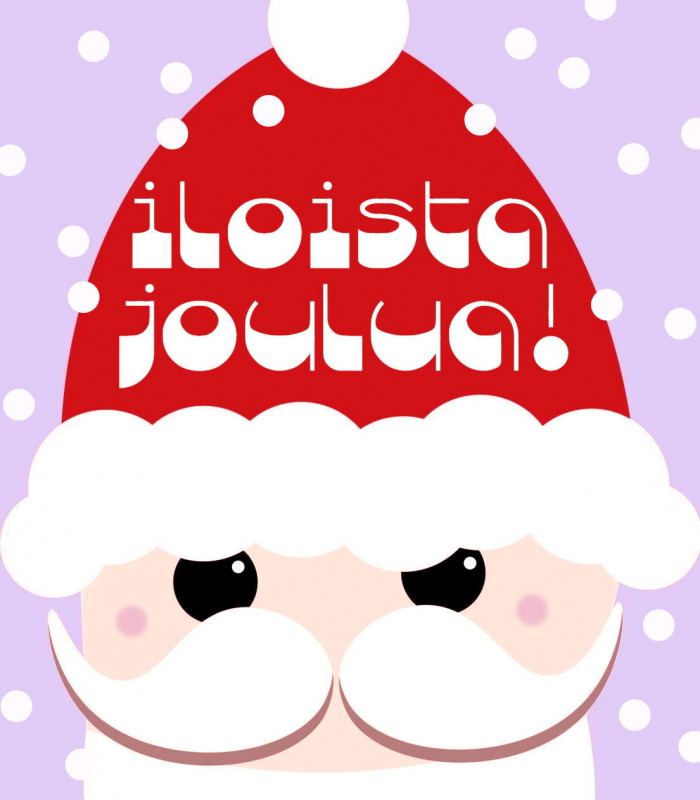
⁹¡Feliz Navidad! - Merry Xmas! - Iloista Joulua!
¡Feliz Navidad! - Merry Xmas! - Iloista Joulua!
Damn this looks so cool, that 2 the difference between 6 & 9, and so much more great stuff going on in this font, a masterpiece my friend. Love it .. ❤️
lovely font and festive sample~
A very stylish, charming font. Iloista joulua ja uutta vuotta!
Groovy and delightful.